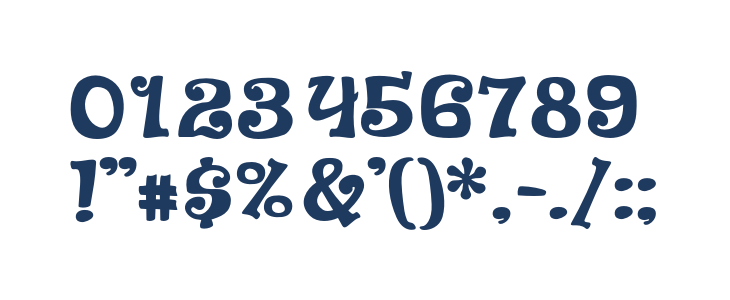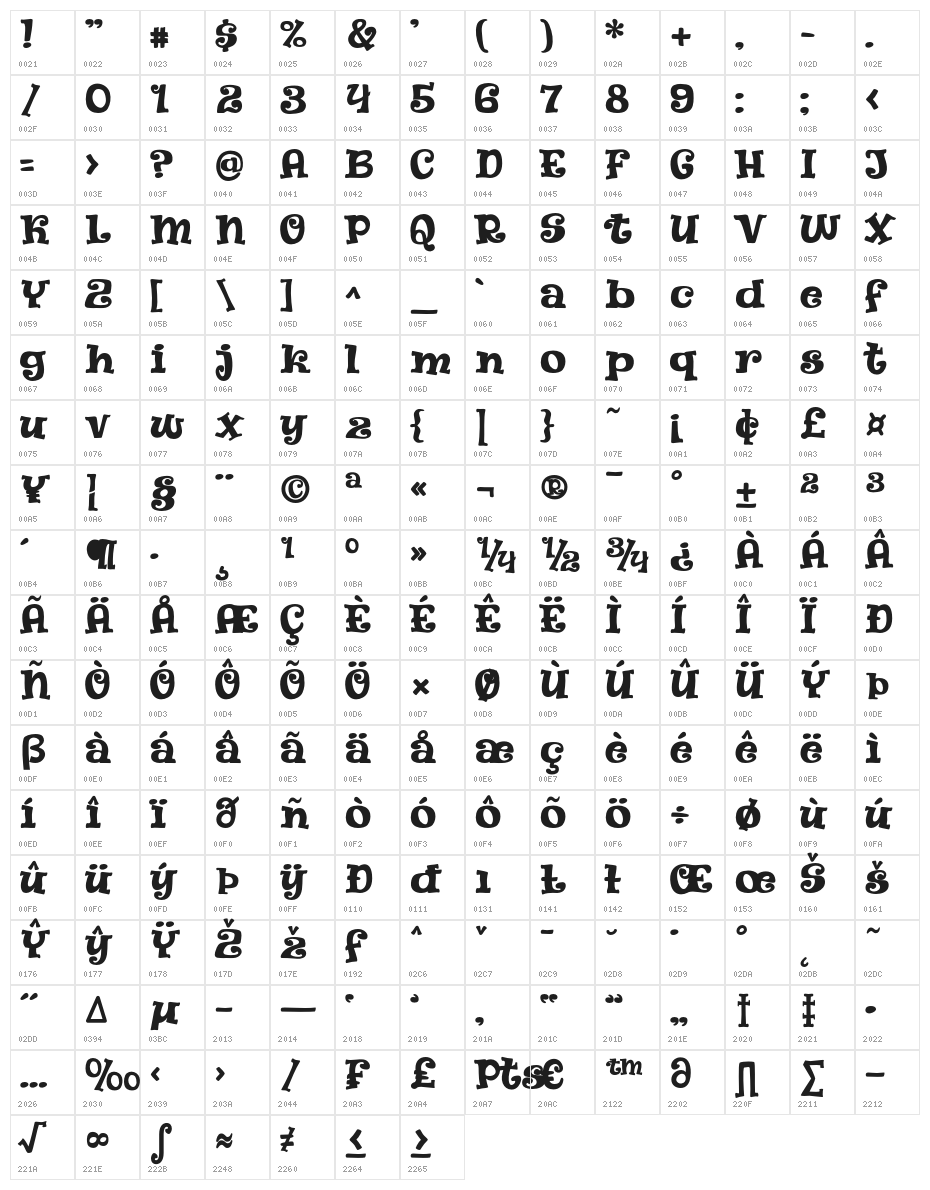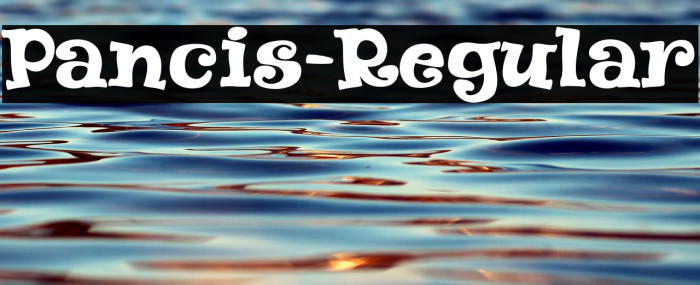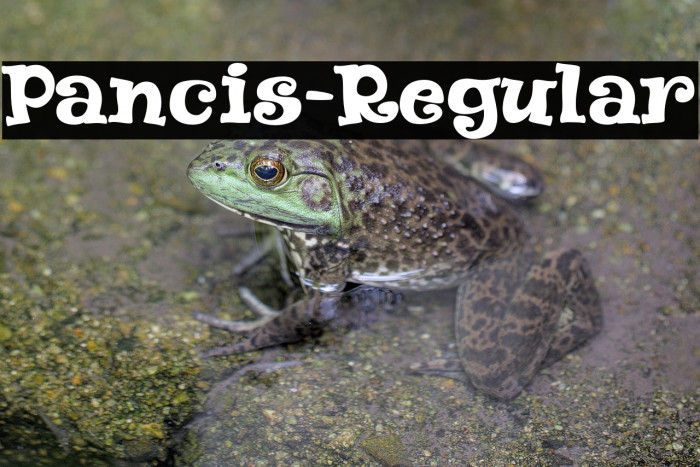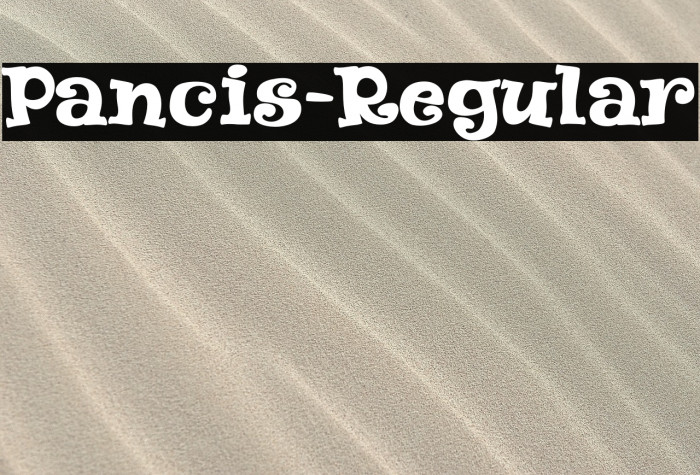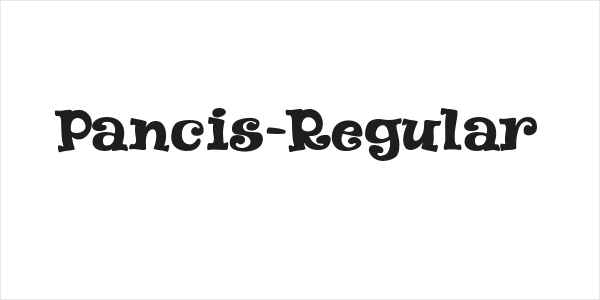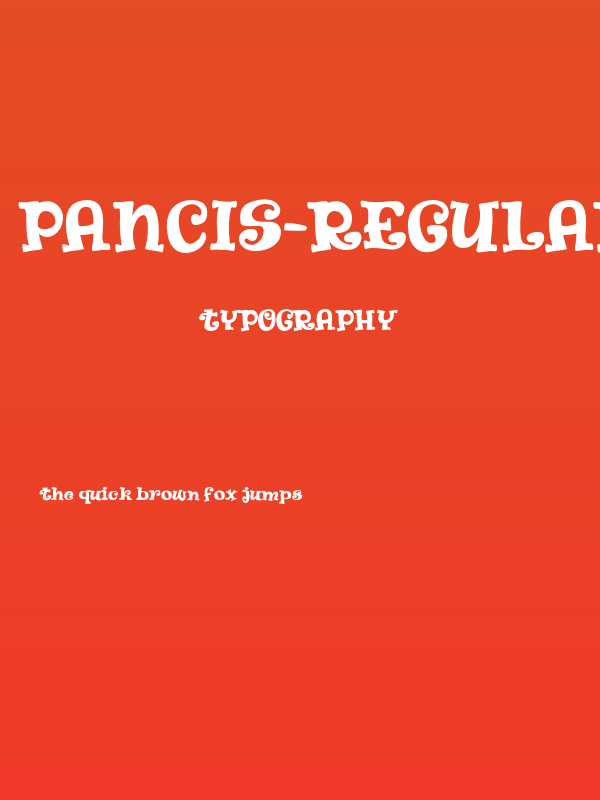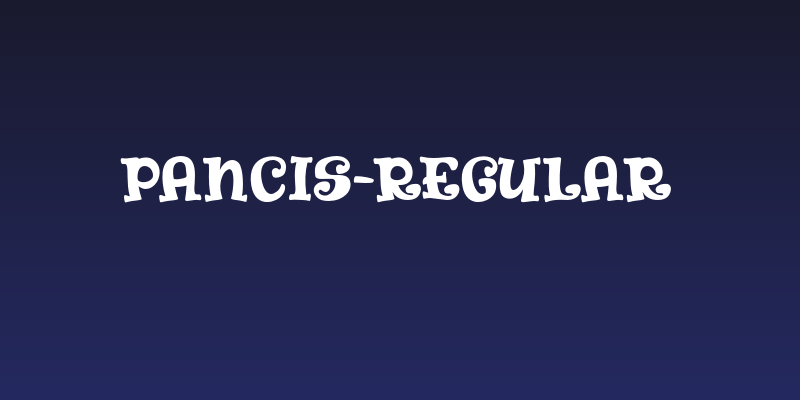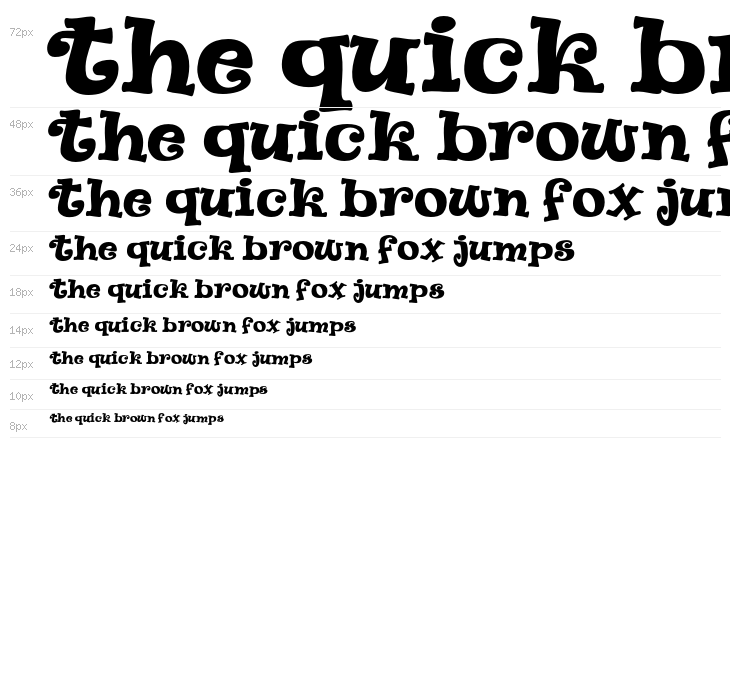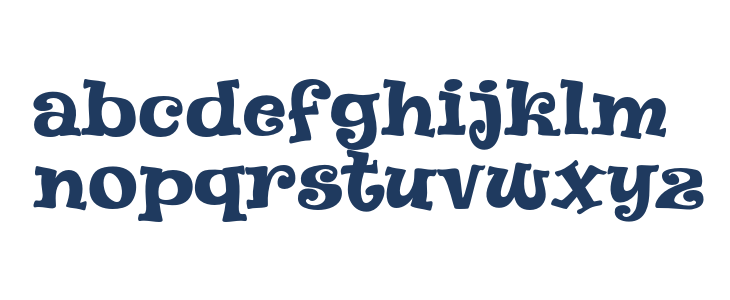
Pancis-Regular Font
Pancis-Regular Description
This font features a playful and whimsical design, characterized by its bold, rounded letters with a slight tilt and exaggerated curves. The uppercase and lowercase letters maintain a consistent style, with the lowercase letters mirroring the playful nature of the uppercase. The numbers and special characters follow the same design principles, ensuring a cohesive look across all characters. The font's unique style makes it stand out, with its thick strokes and rounded edges giving it a friendly and approachable appearance.
| Overall Style | Playful, Whimsical |
| Proposed Projects | Ideal for children's books, playful branding, party invitations, and creative posters. |